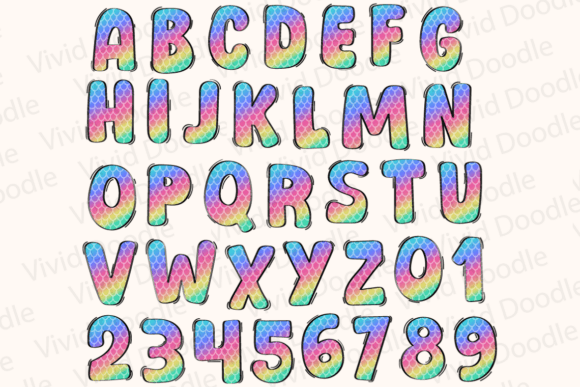
Mermaid Rainbow Font: Add a Splash of Fantasy to Your Designs
Are you looking for a font that can add a touch of magic to your designs? Look no further than the Mermaid Rainbow Font. This playful and colorful typeface is inspired by the enchanting world of mermaids and rainbows, making it perfect for a variety of creative projects.
What is Mermaid Rainbow Font?
Mermaid Rainbow Font is a magical and colorful typeface that combines vibrant rainbow hues with whimsical, flowing letters. This font is designed to bring a splash of fun and imagination to any graphic design, making it perfect for projects that require a touch of fantasy.
Whether you’re working on party invitations, school projects, greeting cards, or creative art, the Mermaid Rainbow Font is sure to make your designs stand out. Its playful and colorful nature makes it ideal for under-the-sea themes, children’s decor, and any project that needs a burst of vibrant, dreamy colors.
Key Features of Mermaid Rainbow Font
- Magical and Colorful Design: The font features vibrant rainbow hues and whimsical, flowing letters that are sure to add a touch of magic to your designs.
- Playful and Fun: The font’s playful nature makes it perfect for projects that require a touch of fantasy and imagination.
How to Use Mermaid Rainbow Font
The Mermaid Rainbow Font is easy to use and can be incorporated into a variety of design projects. Here are some tips on how to use the font:
- Party Invitations: Use the font to create colorful and playful party invitations that are sure to delight your guests.
- School Projects: Add a touch of fantasy to school projects such as posters, presentations, and reports.
- Greeting Cards: Use the font to create colorful and playful greeting cards for special occasions.
- Creative Art: Incorporate the font into your creative art projects, such as illustrations, paintings, and collages.
Benefits of Using Mermaid Rainbow Font
Using the Mermaid Rainbow Font can bring a number of benefits to your design projects. Here are some of the advantages of using this font:
- Adds a Touch of Fantasy: The font adds a touch of fantasy and imagination to your designs, making them more engaging and playful.
- Perfect for Under-the-Sea Themes: The font is perfect for under-the-sea themes, children’s decor, and any project that needs a burst of vibrant, dreamy colors.
- High-Quality Design: The font features a high-quality design that is sure to make your designs stand out.
Tips and Tricks for Using Mermaid Rainbow Font
Here are some tips and tricks for using the Mermaid Rainbow Font:
- Experiment with Different Colors: Experiment with different colors and combinations to create unique and eye-catching designs.
- Use in Combination with Other Fonts: Use the font in combination with other fonts to create visually appealing and interesting designs.
- Pay Attention to Legibility: Pay attention to legibility when using the font, especially in smaller sizes.
- Have Fun: Most importantly, have fun and be creative with the font!
In conclusion, the Mermaid Rainbow Font is a magical and colorful typeface that is perfect for adding a touch of fantasy to your designs. With its playful and whimsical design, this font is sure to make your designs stand out. Whether you’re working on party invitations, school projects, greeting cards, or creative art, the Mermaid Rainbow Font is a great choice.
So why not dive into creativity with the Mermaid Rainbow Font? With its compatibility with popular design software and high-quality design, this font is sure to bring a splash of fun and imagination to any graphic design.